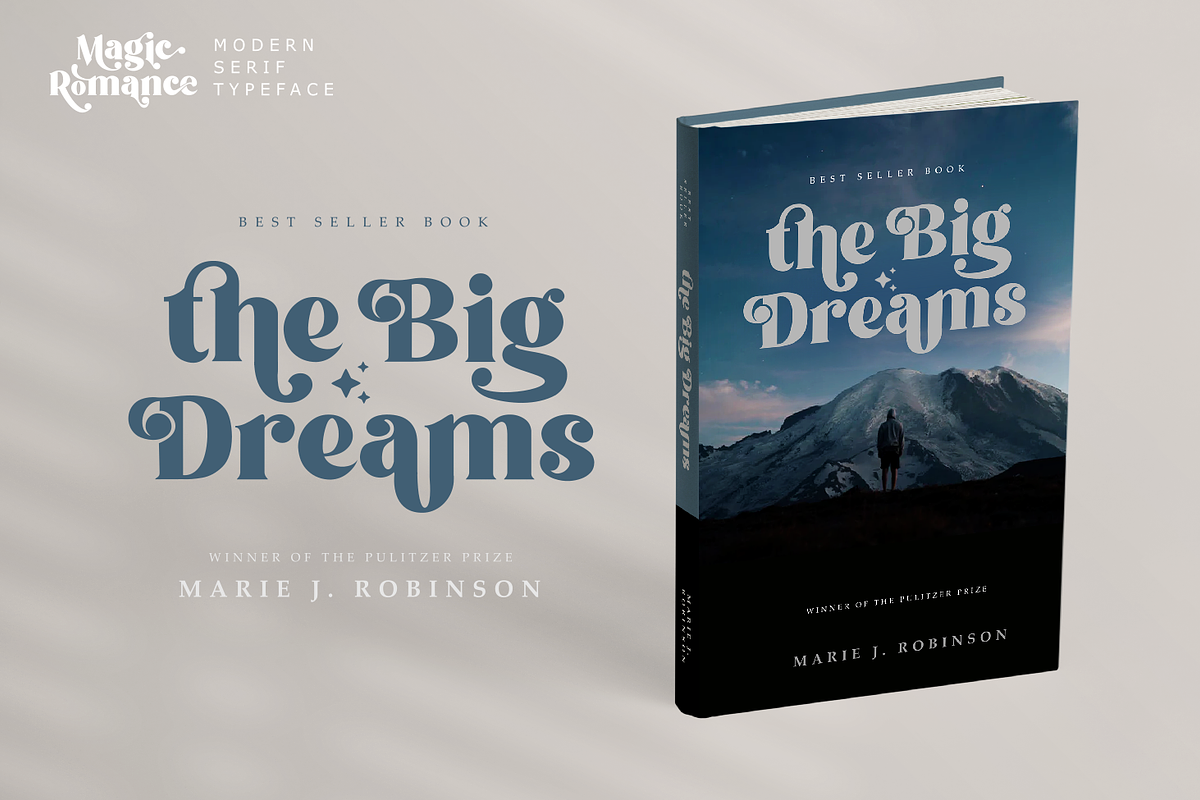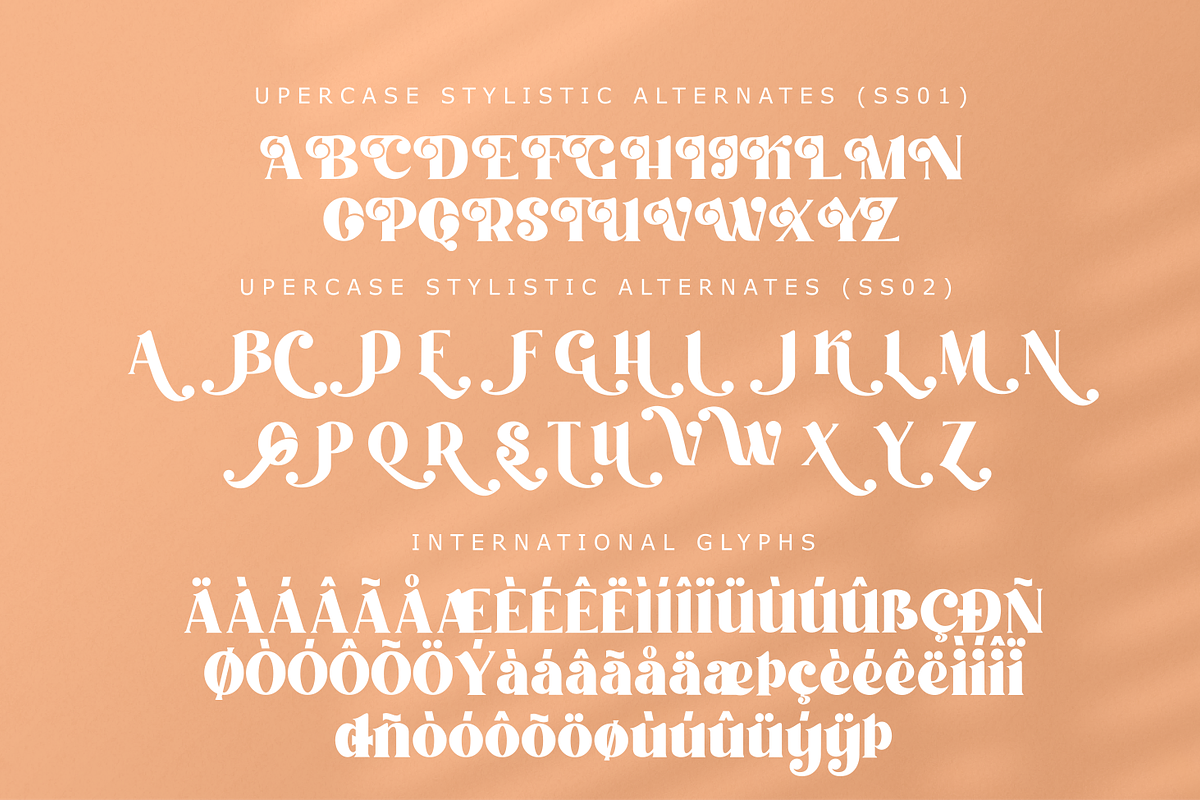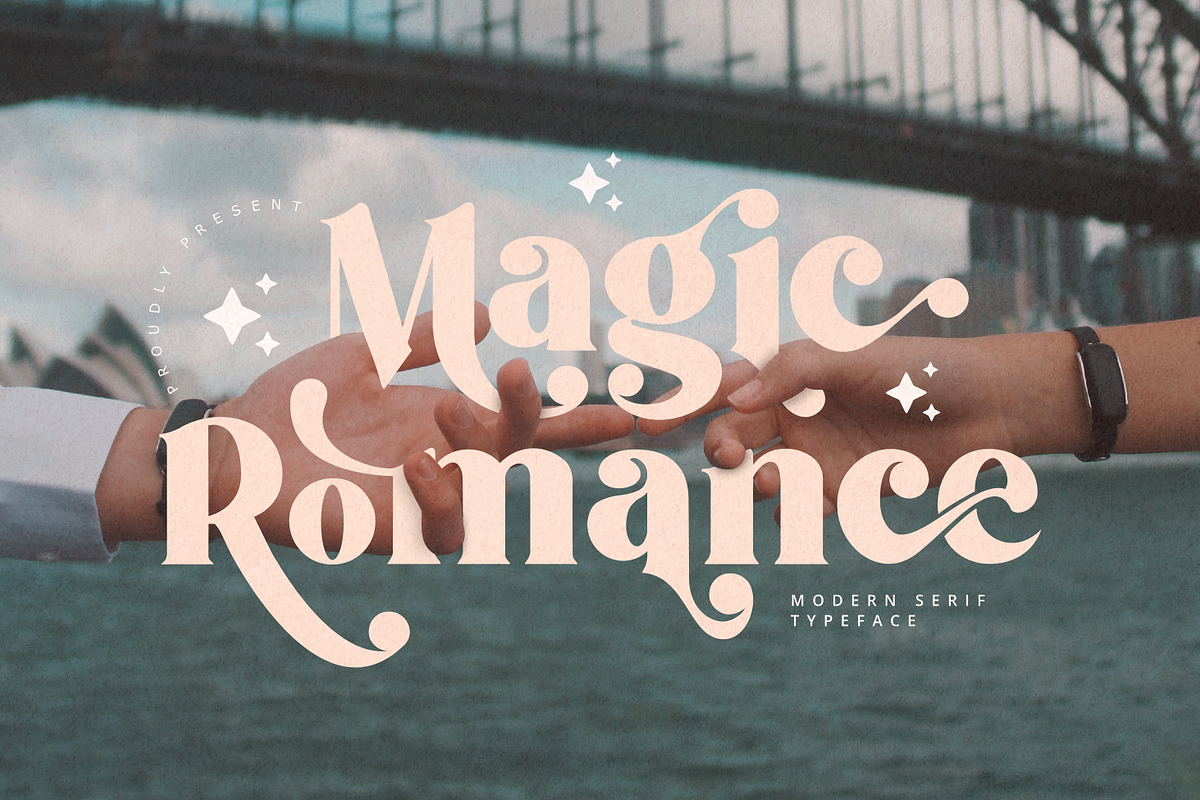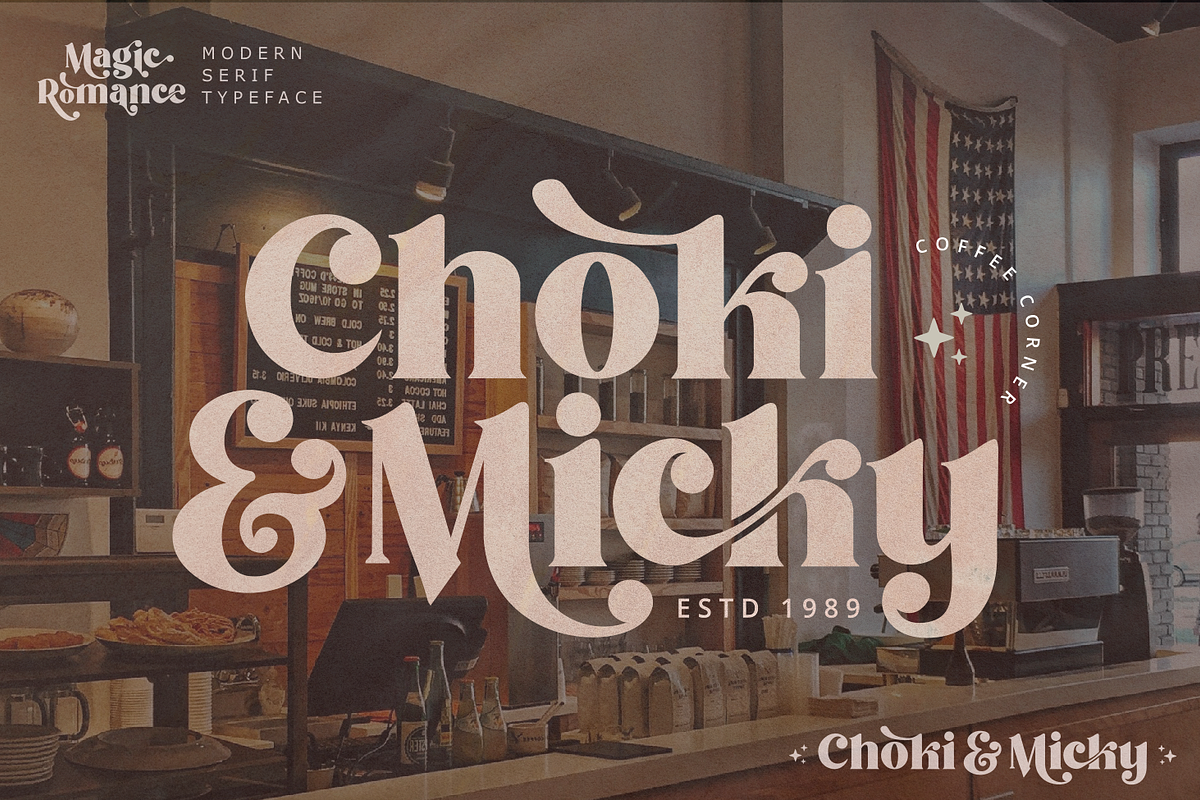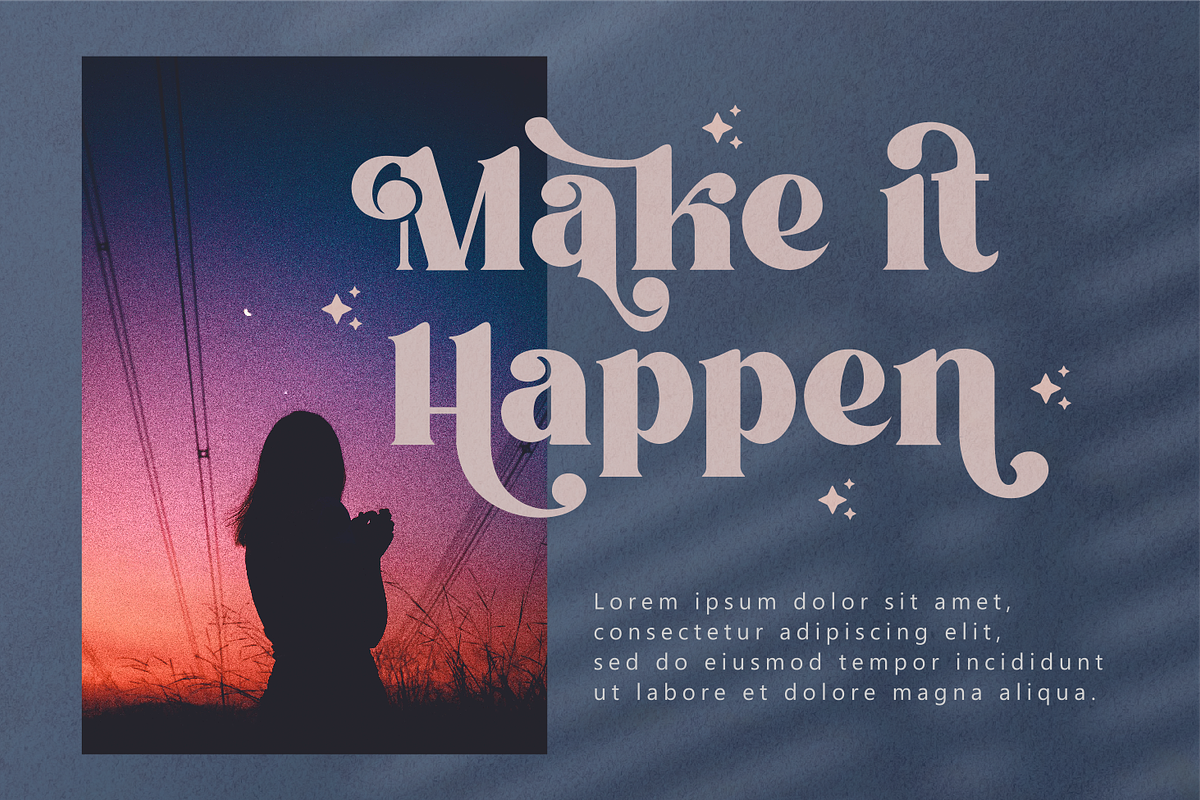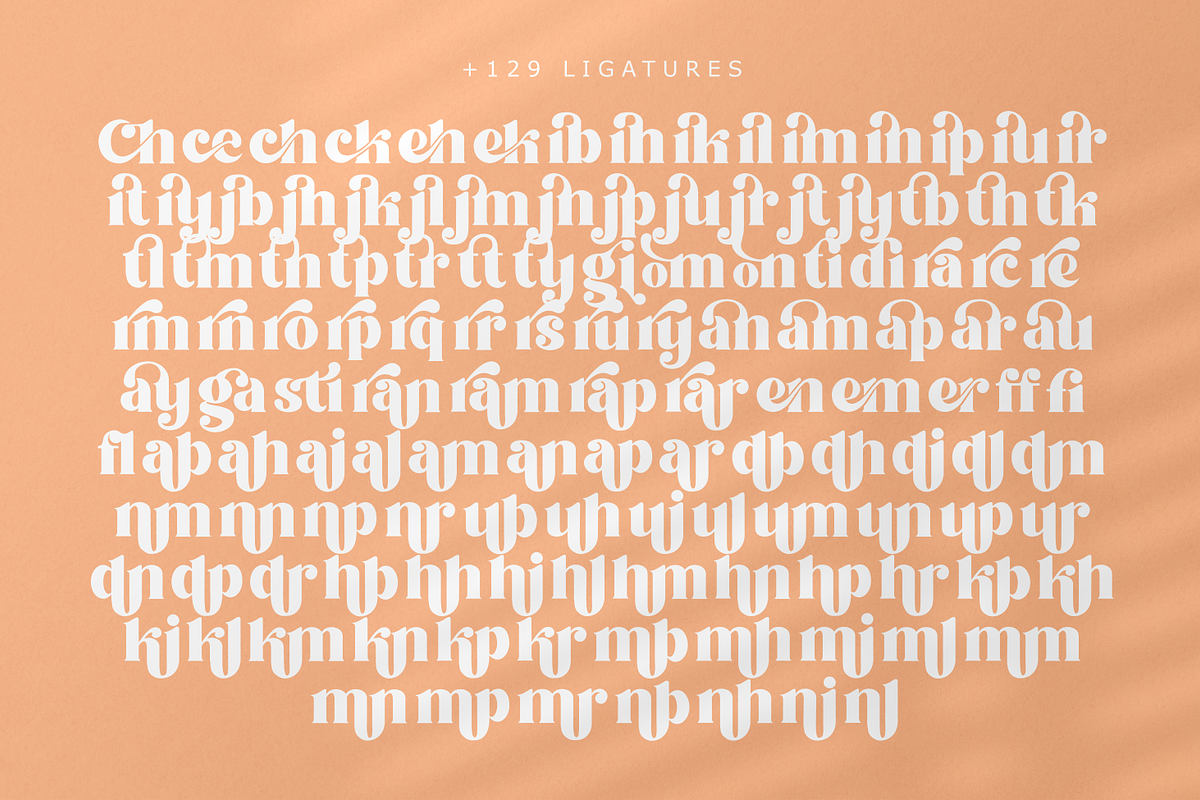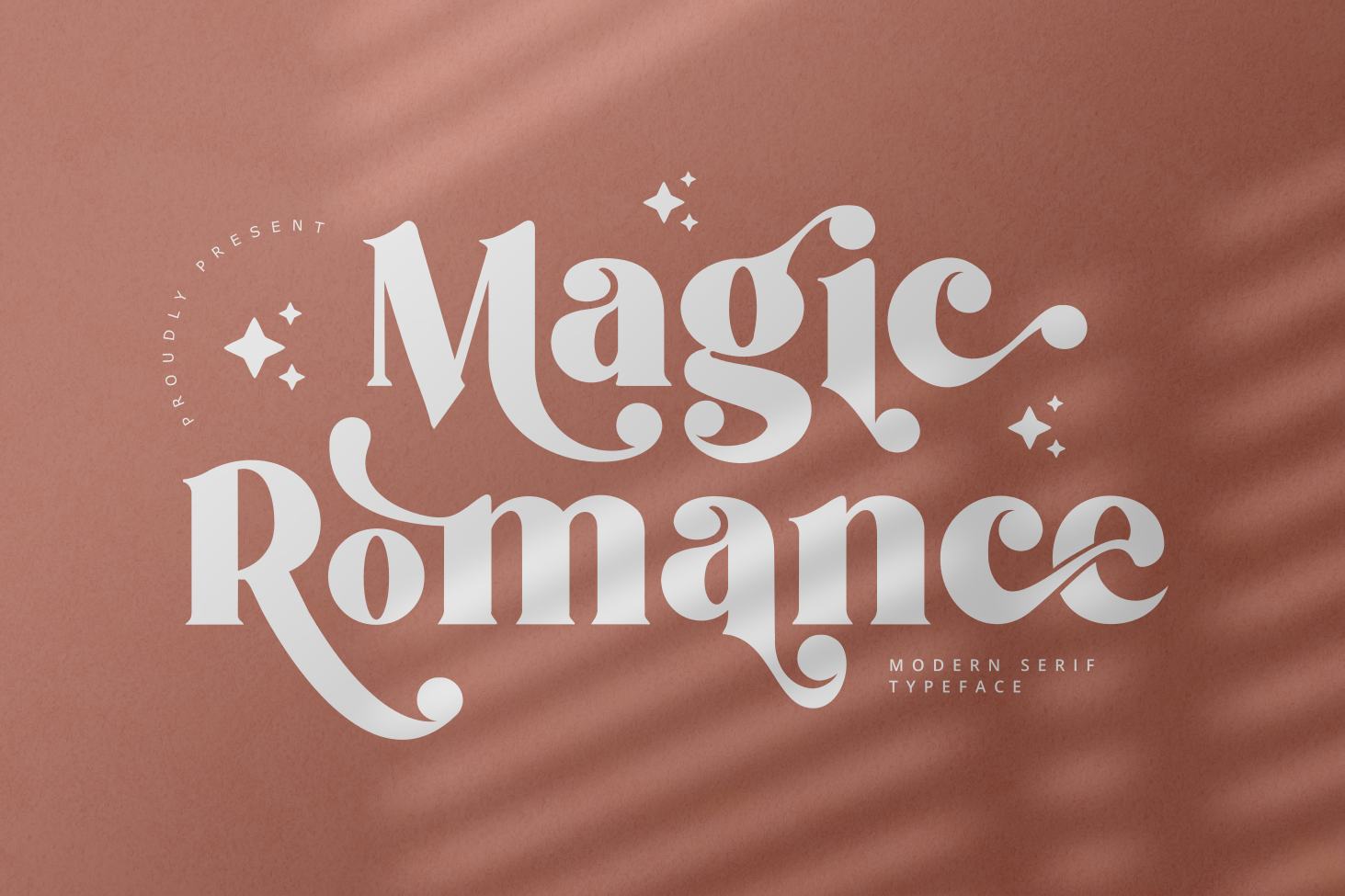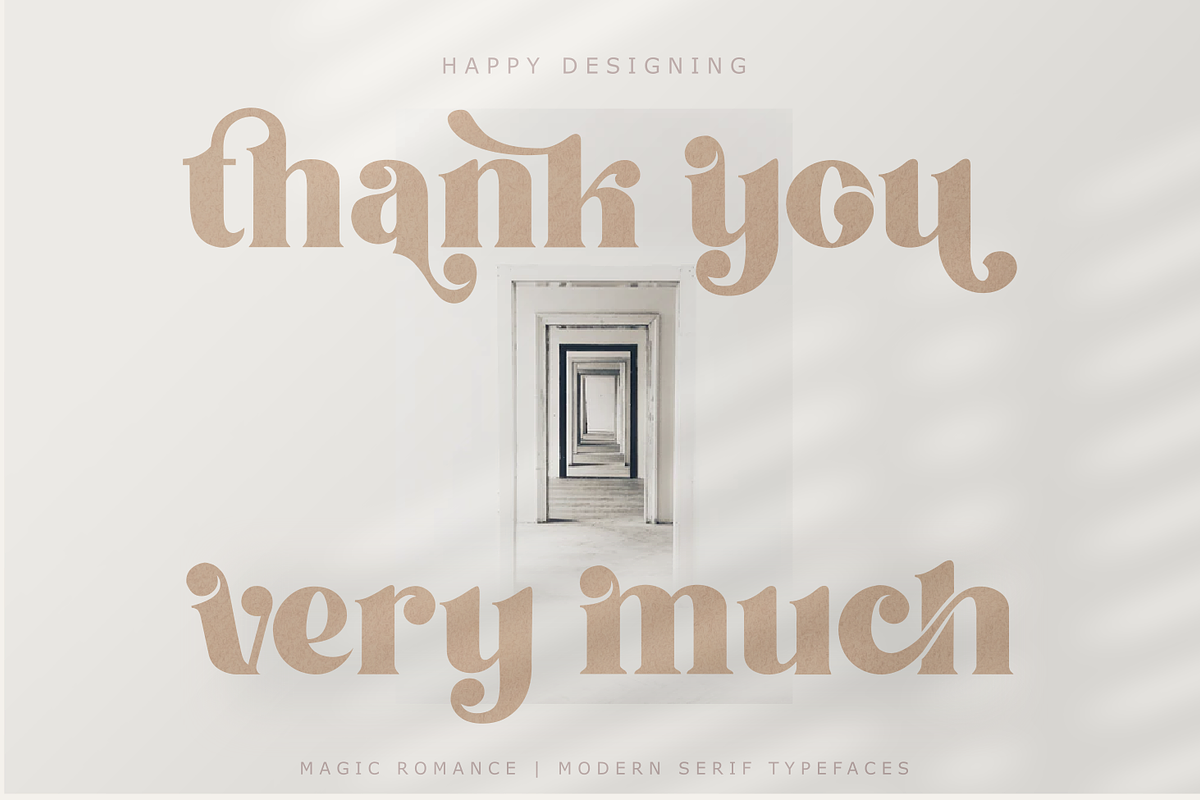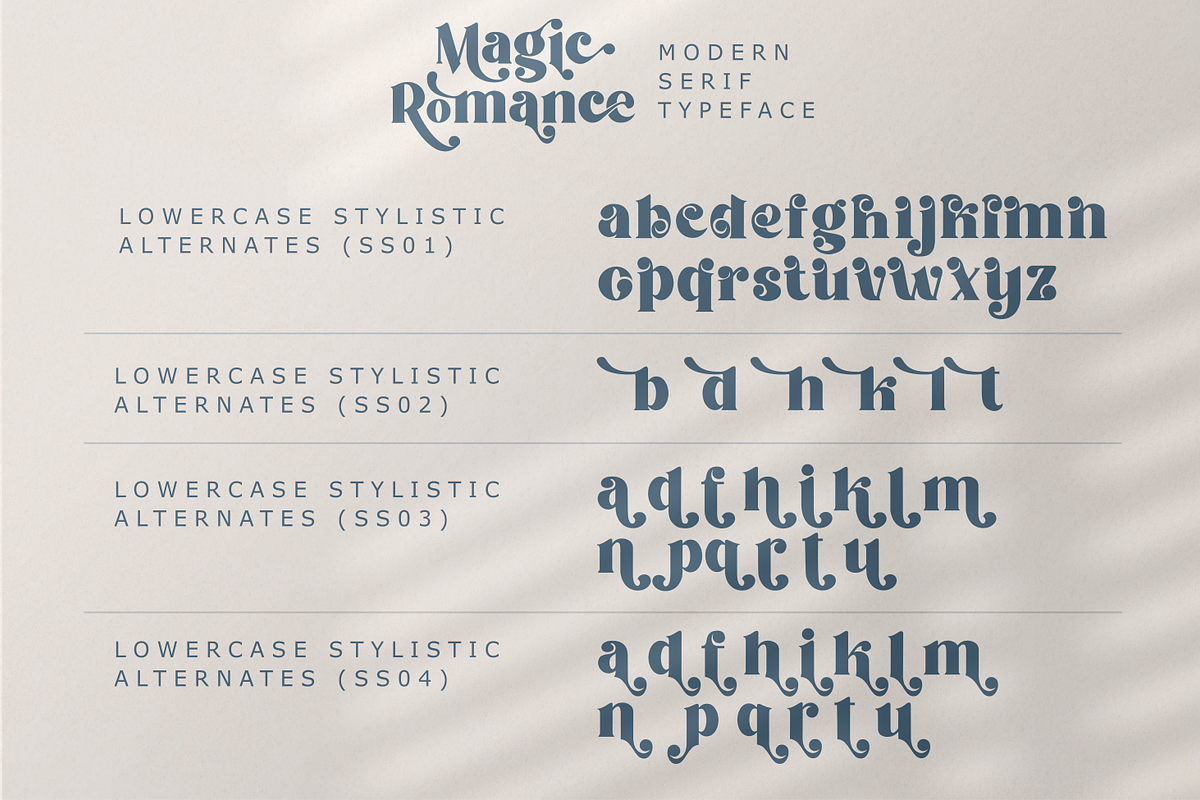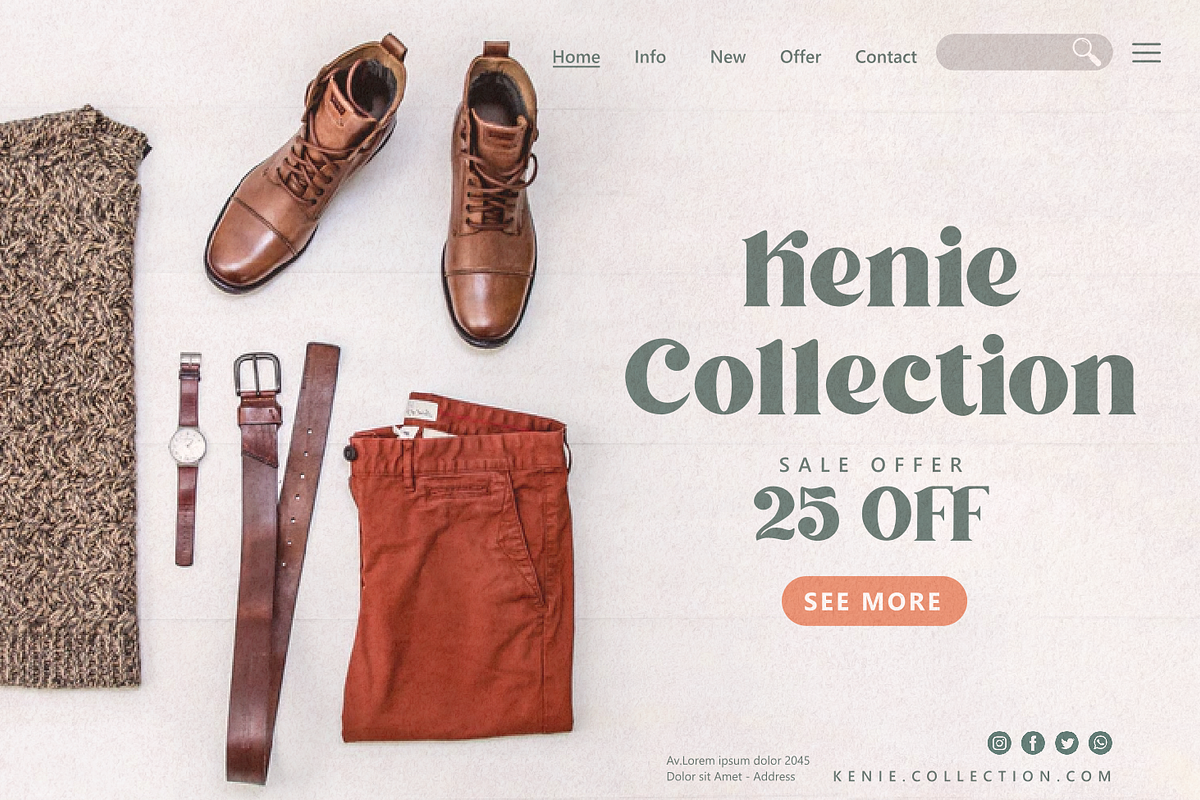
Magic Romance - Modern Serif Font
Hi everyone, Introducing my special font Magic Romance
Magic Romance is a modern and elegant serif font. Magic Romance is well-suited for advertising, branding, logotypes, packaging, titles, headlines and editorial design. I created more much alternates variant and much natural ligatures to make this font very classy and look so beauty. Magic Romance was built with openType features make your project wil be perfect.